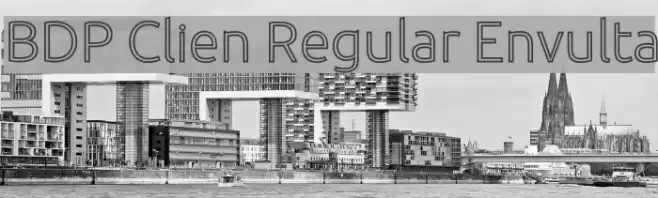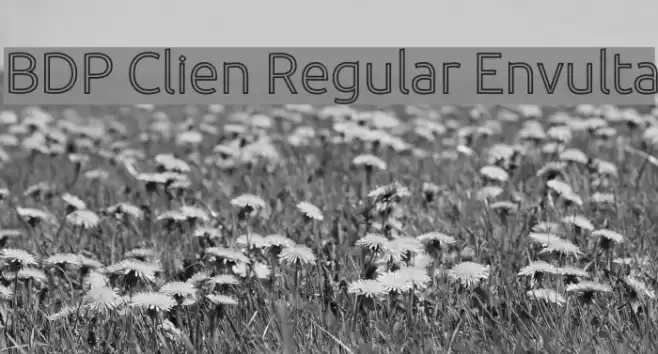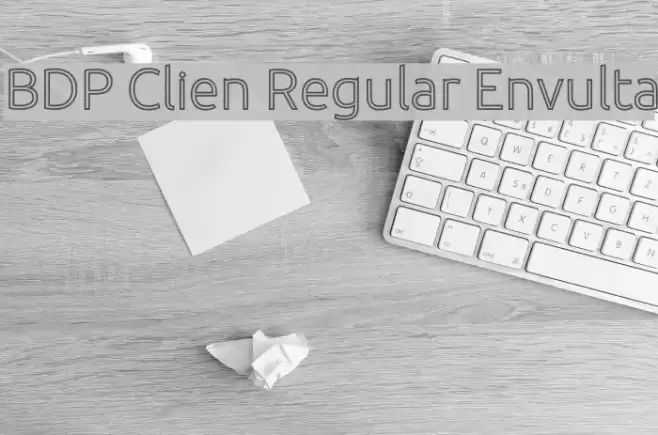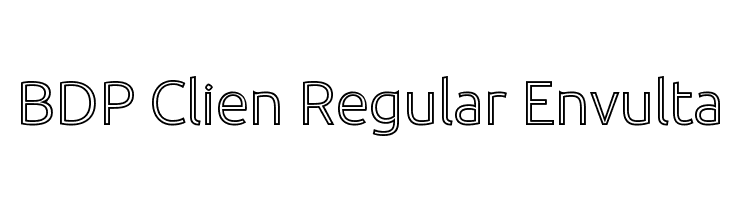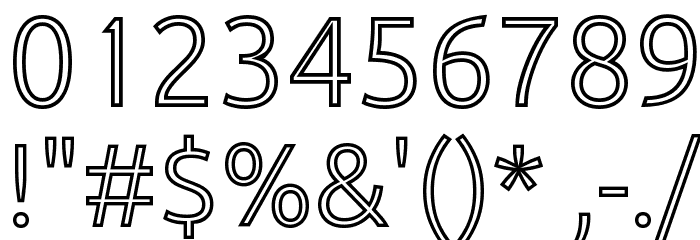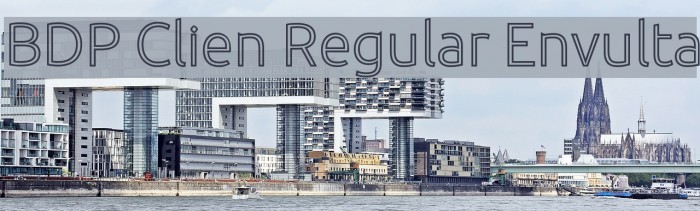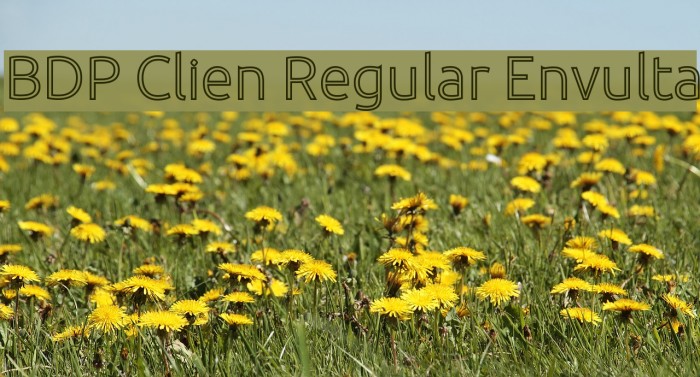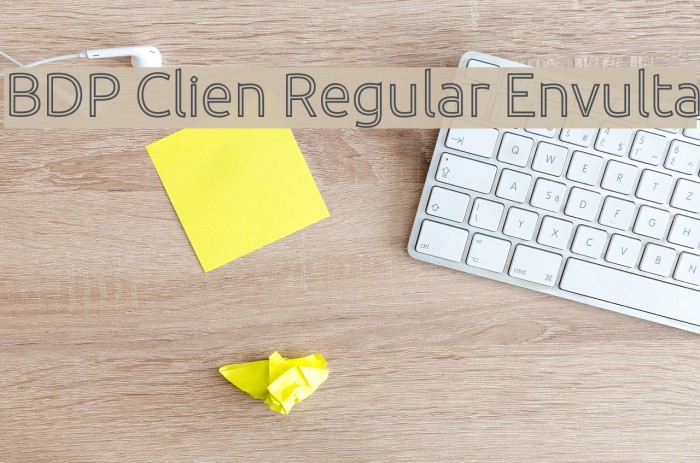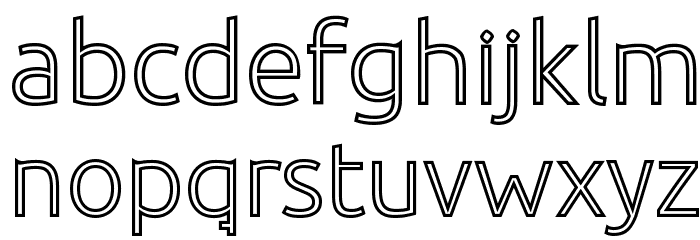
BDP Clien Regular Envulta Font
BDP Clien Regular Envulta Description
This font features a clean and modern sans-serif style with a geometric structure. The characters are outlined, providing a unique and contemporary look. The uppercase and lowercase letters maintain a consistent height and width, contributing to a balanced and harmonious appearance. The numerals are clear and easy to read, while the special characters are well-defined, making this font versatile for various design applications. Its open and airy design makes it suitable for both digital and print media, ensuring readability and aesthetic appeal.
A modern, outlined sans-serif font with a geometric structure from Uncategorized fonts.
- Proposed Projects: Ideal for branding, advertising, digital media, and editorial design projects.
- Use Case: Headlines, Logos, Digital media